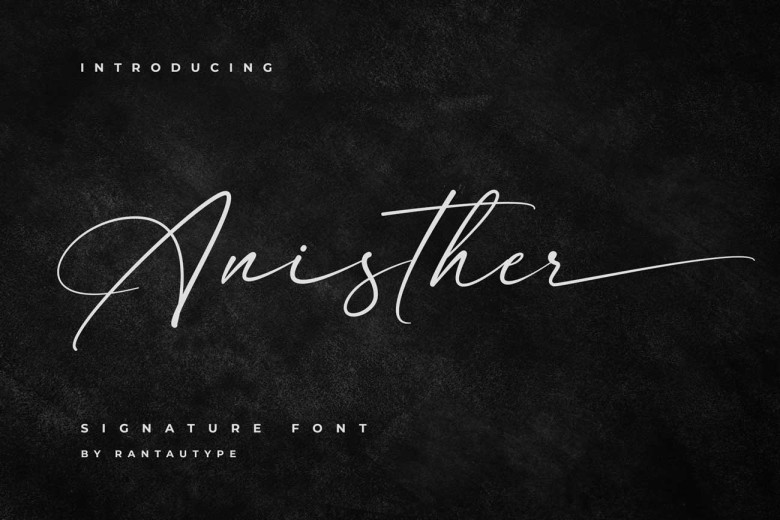
Anisther Font
Anisther font is our new signature font! Designed to express professionalism, its elegance can help communicate professional ideas. Readable, stylish contemporary premium elegant chic feminine cute appealing and simple to use are just some of its attributes that set it apart.
Use Anisther as watermark designs on photographs quotes albums covers magazines business cards or any design projects to make your work look professional – join us and make it shine!
Anisther Signature Font